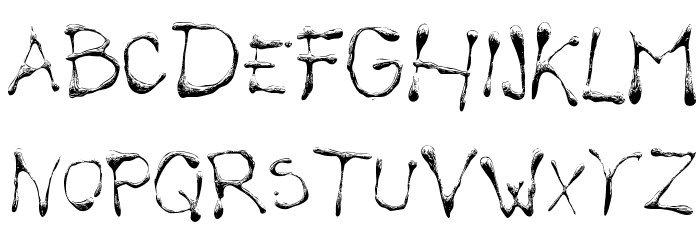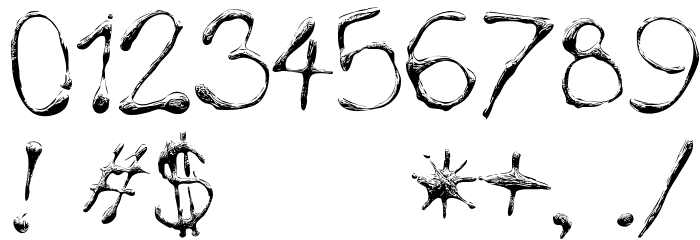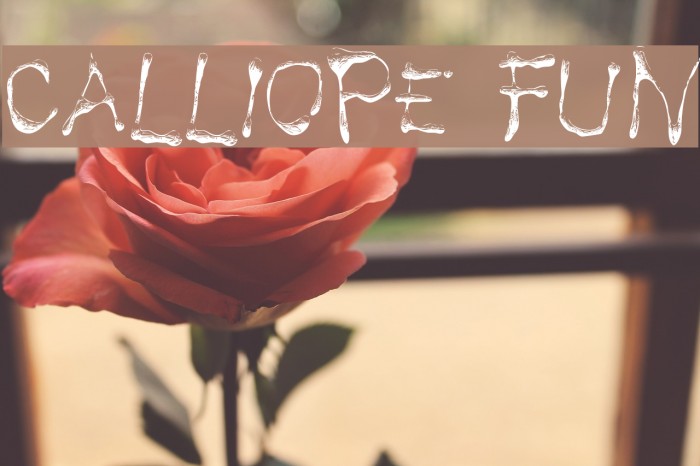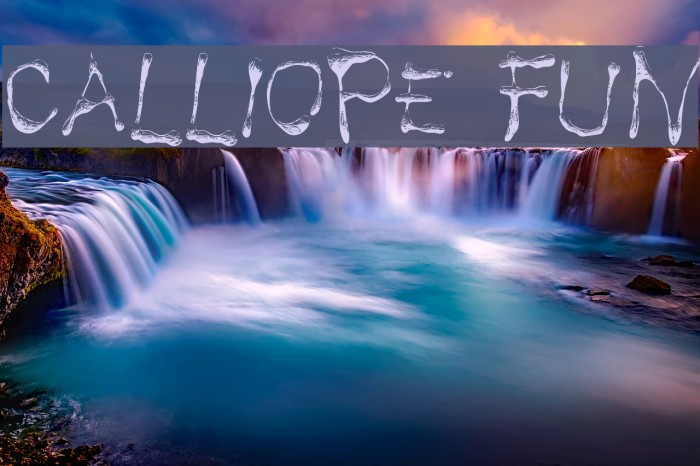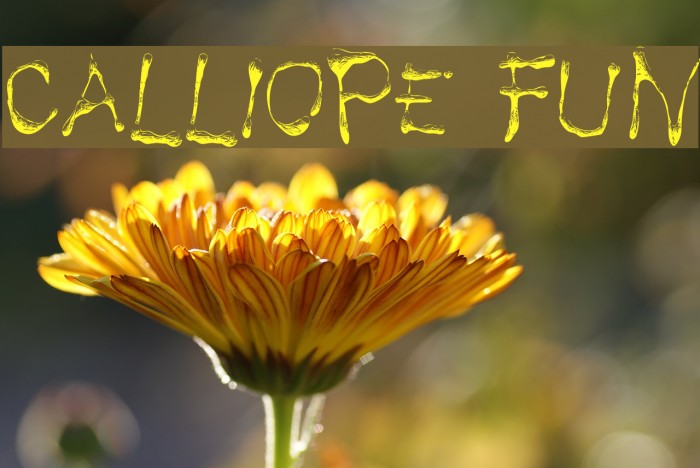
Calliope fun Font
This font features a playful and artistic design, characterized by its brushstroke-like appearance. Each letter and number is crafted with a unique, hand-drawn style that gives it a dynamic and lively feel. The strokes vary in thickness, creating a textured look that adds depth and interest. The overall design is whimsical and slightly irregular, making it ideal for projects that require a creative and informal touch. The special characters maintain the same artistic flair, ensuring consistency across all elements.
A playful, brushstroke-style font with a lively and artistic design.
- Font: Calliope fun
- Proposed Projects: Ideal for children's book covers, creative posters, art-themed invitations, and playful branding materials.
- Overall Style: Artistic, Playful
- Use Case: Headlines, Posters, Creative Projects